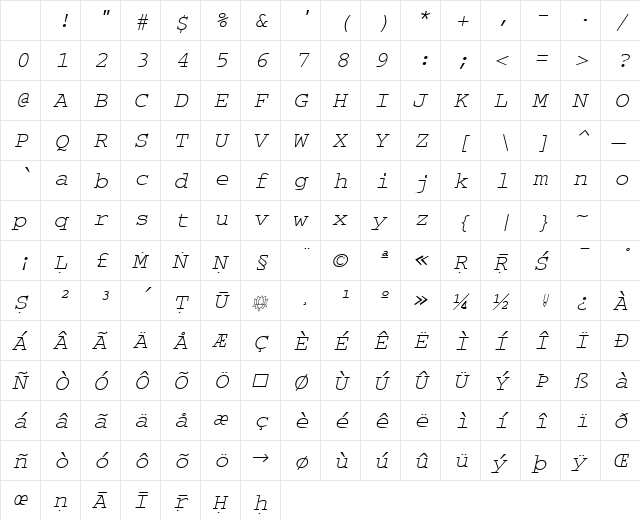
Complete Sanskrit-Courier Oblique glyph index. Displaying only characters natively supported by Sanskrit-Courier Oblique font.
Sanskrit-Courier uses fixed-width spacing throughout, giving it the structured, systematic character associated with coding environments and technical documentation. The slanted form adds forward momentum and visual energy.